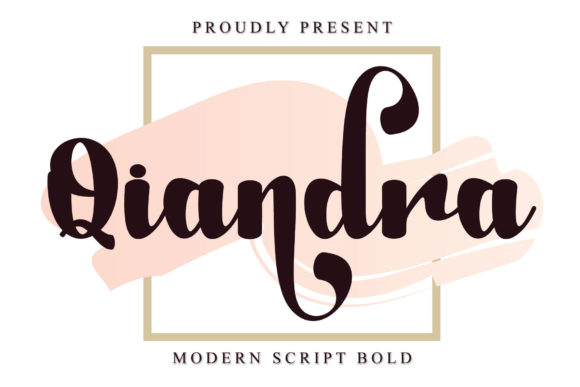
Prepare to be mesmerized by Qiandra, the captivating script font that will infuse your designs with elegance and personality. Qiandra is not just a font; it's an artistic expression that breathes life into your creative endeavors.
With its graceful curves and confident strokes, Qiandra commands attention and leaves an unforgettable impression. Its meticulously crafted characters exude a timeless charm that transcends trends, making it the perfect choice for fashion brands seeking to make a statement.
Immerse yourself in the world of Qiandra and discover a font that embodies sophistication, creativity, and individuality. Its versatility knows no bounds, effortlessly adapting to a myriad of design applications. Whether you're crafting logos, branding materials, social media posts, or eye-catching packaging, Qiandra will elevate your designs to new heights.
Unleash your imagination and let Qiandra guide you on a journey of artistic expression. Its PUA encoding grants you effortless access to a treasure trove of glyphs and swashes, empowering you to add intricate details and flourishes that will make your designs truly shine.
Embrace Qiandra, the font that ignites your creativity and propels your designs to the forefront of fashion. Its beauty and versatility will leave an indelible mark on your audience, captivating them with its timeless elegance and undeniable charm.